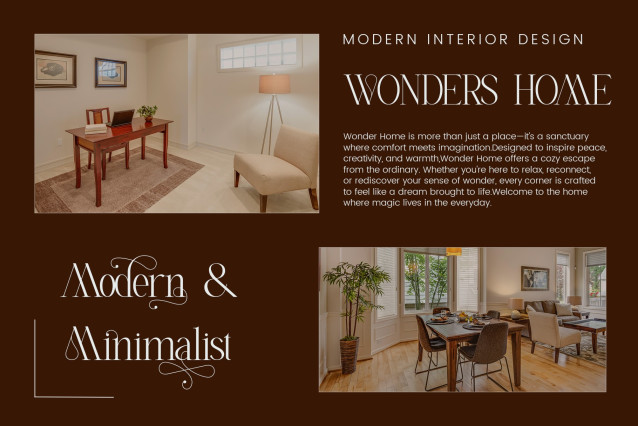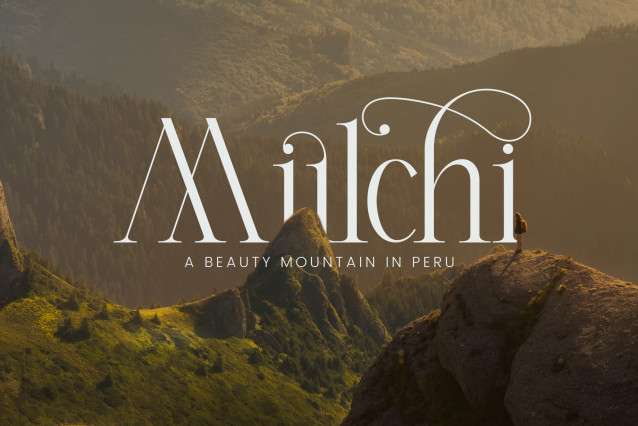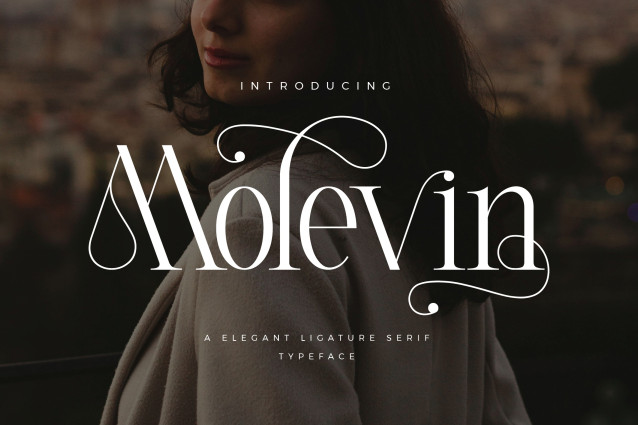
Molevin – Elegant Serif Font
Molevin Stylish Ligature Typeface, inspired by the famous minimalist logo perfect for the purposes of designing templates, brochures, videos, advertising branding, logos and more.
– Ligatures
Designer Name: Doraemon